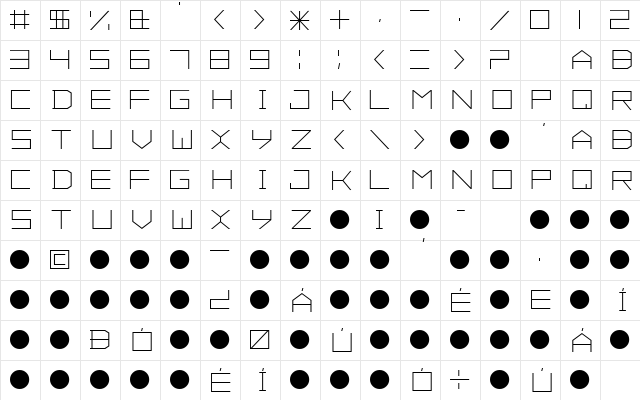
ALPHA Normal
Design Context for ALPHA Typeface
ALPHA is a composed and adaptable typeface that performs quietly and consistently across a wide range of design contexts.
Pro Tip: Pair ALPHA with a font of contrasting weight or personality to build a more expressive typographic hierarchy.